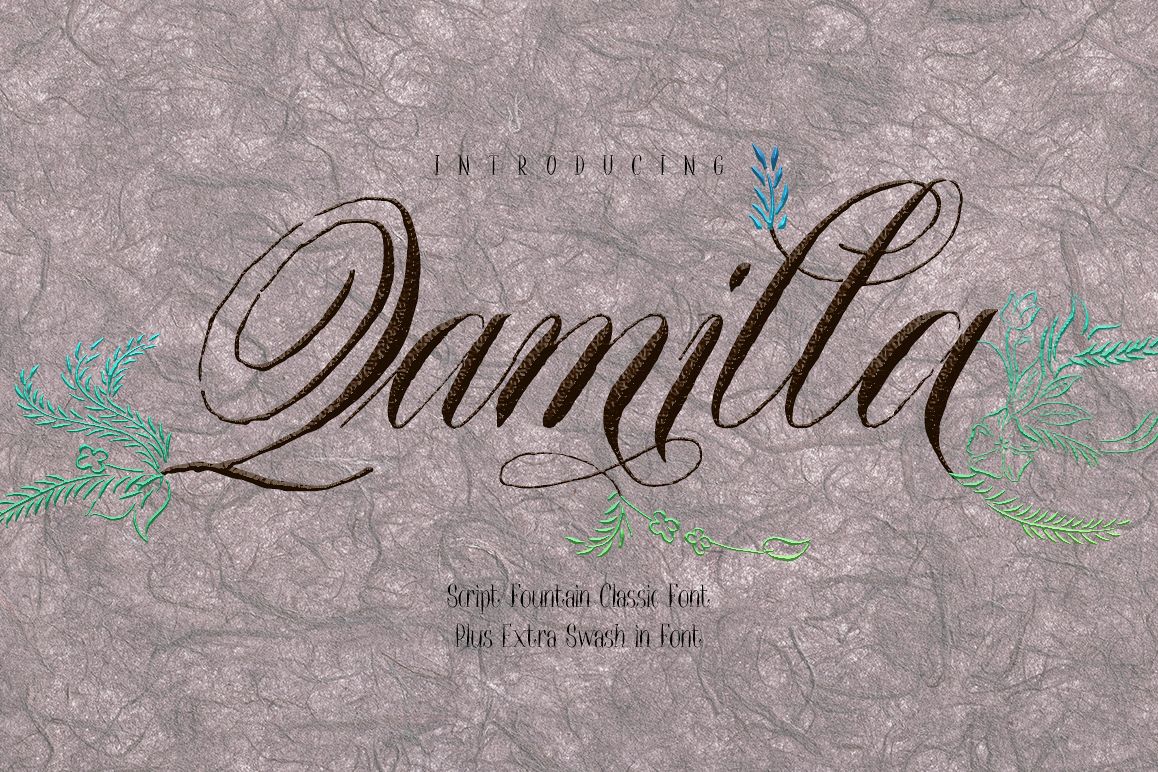
Qamilla
Qamila Swash
Qamilla Classic Script Font is original lettering creating by fountain Flexible Nib Pen G-Nikko.
Qamilla looks like the original script handwriting by original ink texture.
Qamilla is very formal Classic script font for anything your product design.
Qamilla very Easy to use, just type a1 a2 a3 a4.... Qamilla come with 611 glyph with up to 18 alternates, Plus Ornament flower swash in font creating by flexible Nib Pen too. I hope you love this font
Qamilla is very suitable for Wedding and Gift Card anything and for other your design product, like as Logos, Wedding, Business Cards, Magazine, Gift Cards, Cloth, T-Shirt, Menu of Cafe and Restaurant, Brands, CD and DVD Cover, Wall, Frame, and typing in your PC. I think... This Font you can use and Apply for anything you want.
Opentype Feature:
Standard Typeface
Uppercase and Lowercase
Uppercase Alternate Character in ss01
Lowercase Alternate Character 10-18 glyph
Ligature
Punctuation, Symbols, Basic Latin and Extended